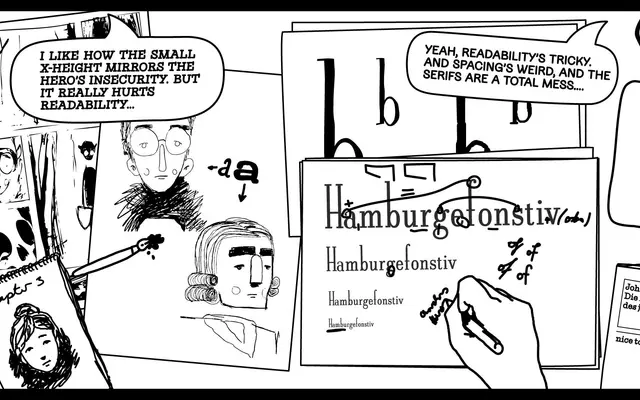
Golzheim
Nice To Type · Gabriel and Jonas
A high-contrast serif and companion sans with hand-drawn origins, ranging from extreme hairlines to ultra-black weights across variable fonts with 300+ built-in emojis.
Conceived at the Düsseldorf University of Applied Sciences and rooted in a comic-like reworking of Bodoni, Golzheim and Golzheim Sans run ten weights from Hairline to Black with matching italics and variable font support for both weight and italic axes. Distinct spurs, occasional unsteady strokes and a small x-height carry a sense of movement throughout, while multiple stylistic sets offer open counters and continuous stroke variants for additional expressive range. Over 385 symbols including more than 300 emojis are embedded across all styles, with scribbled strikethroughs and Private Use Area characters extending the palette further.
Golzheim is a high-contrast serif with Bodoni-like origins, featuring expressive stroke variation from hairline to ultra-black and distinct spurs with a hand-drawn, comic-influenced character. A companion sans-serif subfamily (Golzheim Sans) is included but the primary family is the serif.